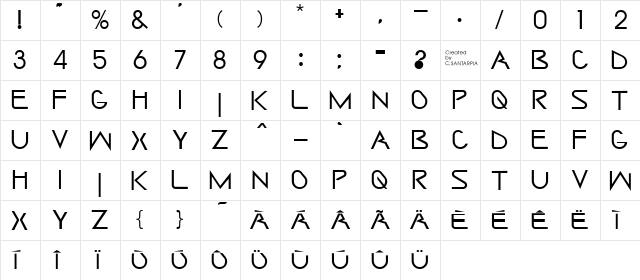
Saintharpy Regular
Design Context for Saintharpy Typeface
Saintharpy is a composed and adaptable typeface that performs quietly and consistently across a wide range of design contexts.